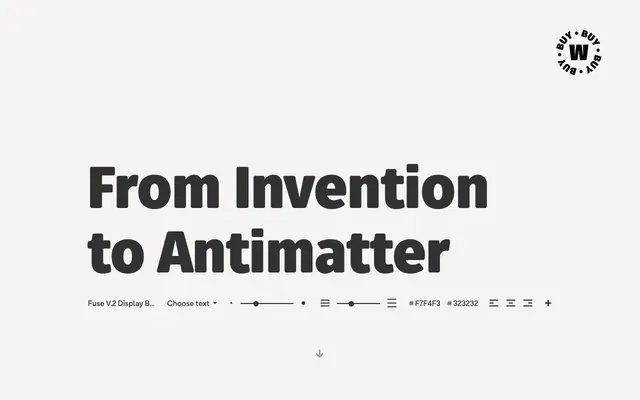
Fuse V.2
W Type Foundry · Diego Aravena, Salvador Rodriguez
A rounded extension of the Fuse family, split into Display and Text subfamilies across ten weights with italics throughout.
Every character corner in this family is rounded, producing a softer, more approachable result than the original Fuse. Thirty-six styles span Thin to Ultrablack across two subfamilies optimised for display and text use respectively. OpenType features include alternates, ligatures, small caps, fractions and arrows, making it reasonably well-equipped for demanding graphic design work.
Fuse V.2 is a geometric sans-serif with fully rounded corners throughout, giving it a soft, approachable quality across both display and text subfamilies.